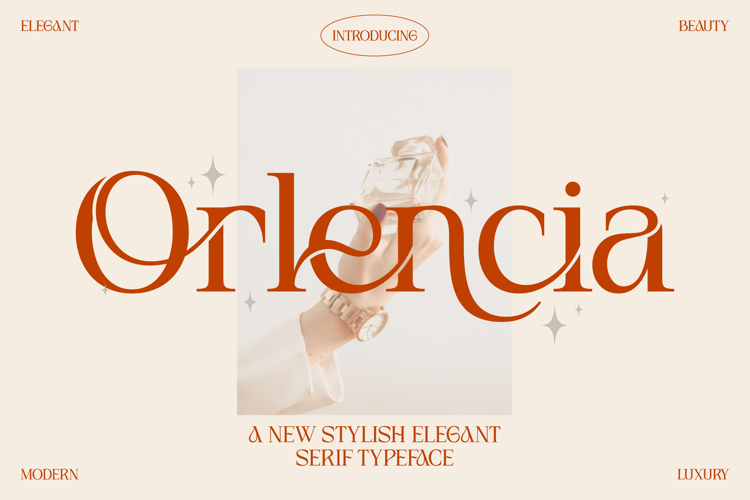
Orlencia Font
Orlencia – Elegant Modern Serif Font
Orlencia is a modern elegant serif typeface designed to bring a sense of luxury, sophistication, and timeless beauty to your designs. With its graceful curves, refined contrast, and stylish ligatures, Orlencia is perfect for branding projects that require a premium and feminine touch.